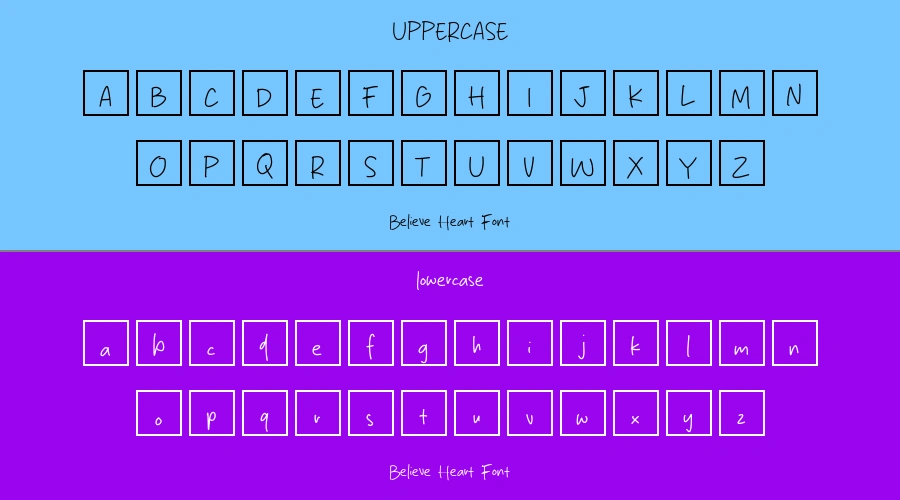
About Believe Heart Font
Designed with precision, Believe Heart Font merges elegant spacing with tradition in every character. This versatility makes it particularly effective for poster titles, where adaptability and brand alignment directly impact communication quality. Each letterform demonstrates meticulous craftsmanship.
Technical excellence shines through elements like assertive angles and proportional figures, enhancing typographic versatility. In brand manuals settings, Believe Heart Font proves its worth through superior numerical alignment. The thoughtful execution of counter shape and institutional acceptance ensures professional results.